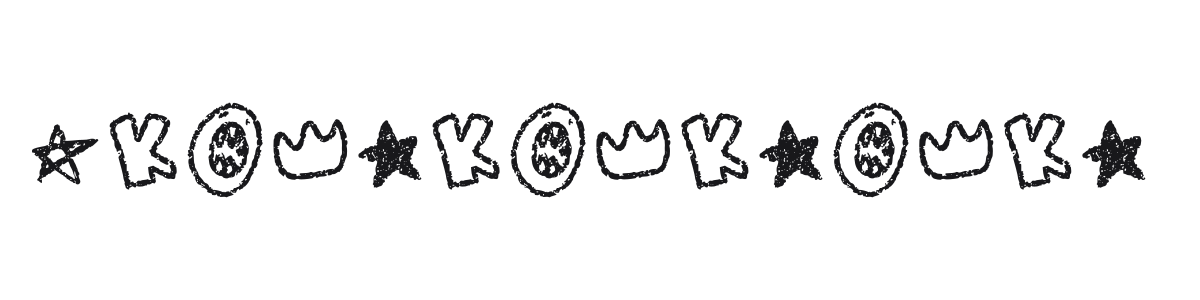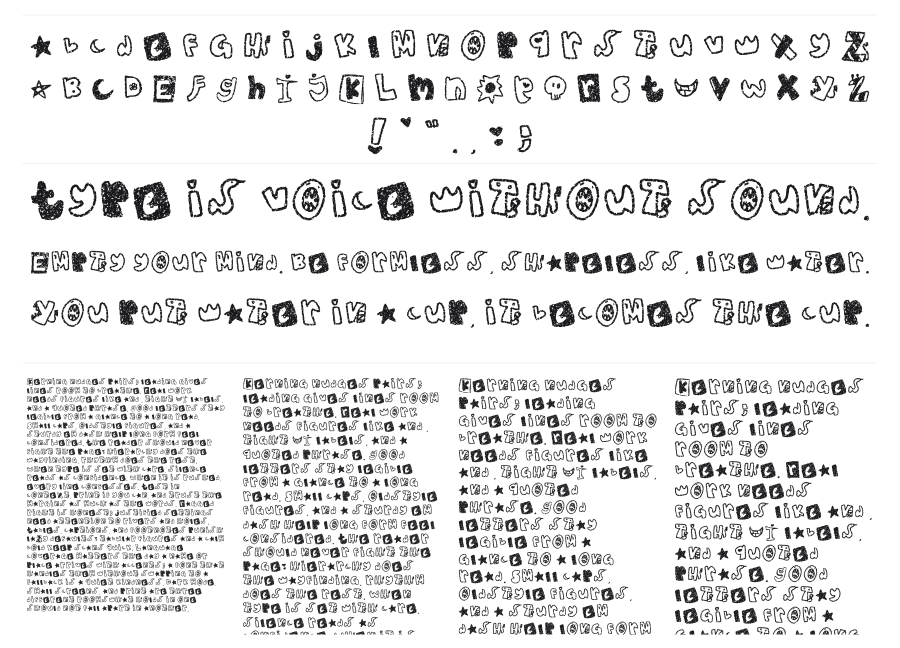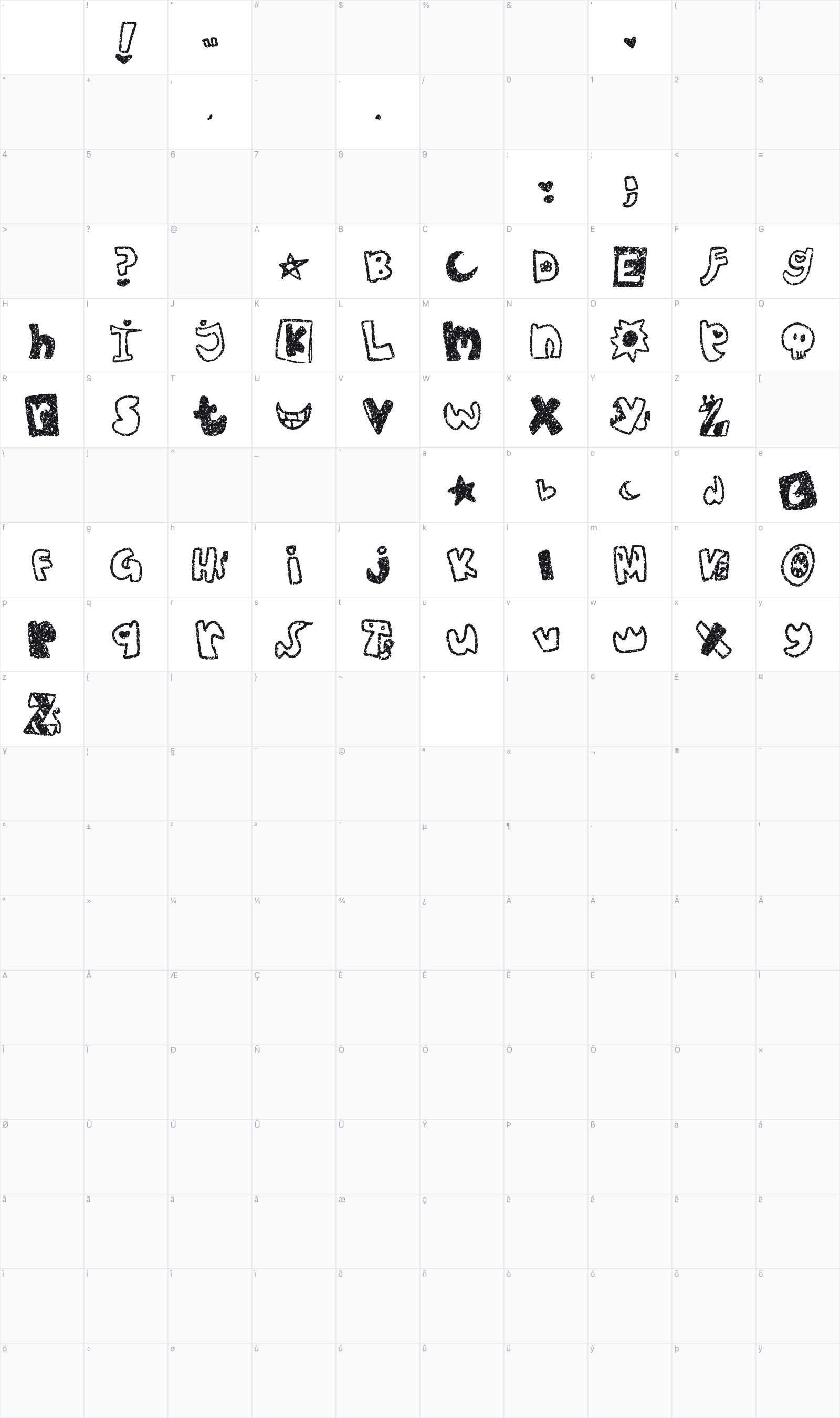
Akowakowkaowka
Akowakowkaowka is a hand-drawn novelty font with an aggressively rough, grainy texture and wildly irregular character shapes. Letters tumble in and out of baseline with doodle-like decorations embedded directly into the forms. It reads like something scrawled and photocopied for a zine or a sticker pack.